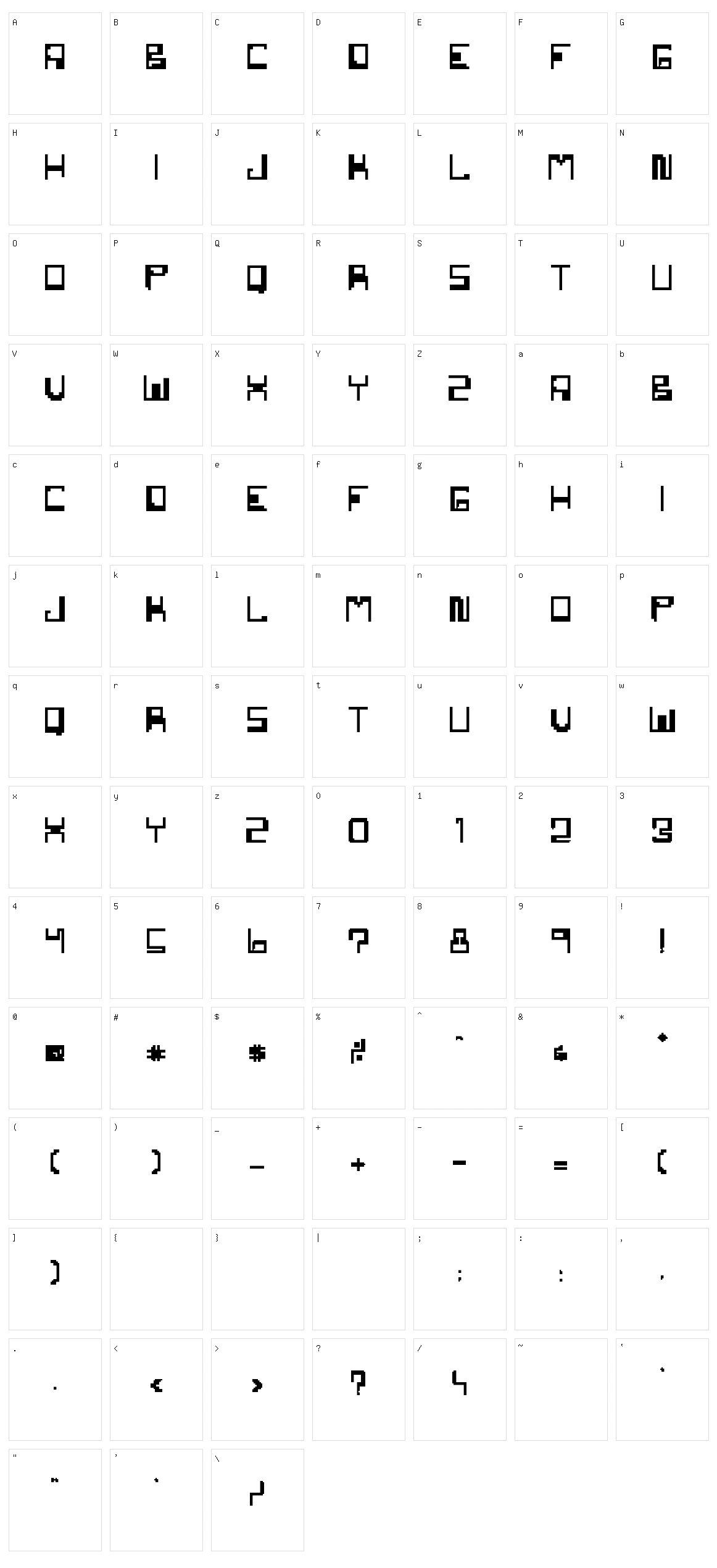
Nemesis Erc 2007
Designed by: The Space Wanderer
Category: LCD & Futuristic
NEMESIS created using Font Creator Program 3
By Eric Wiryanata. January 2007
this actually the third version of Spaceworm, but i decided that it should go with another name.
and this Nemesis was taken after Sajama Cut's song title (you can check their song at myspace)
Note#2: This typeface is ideal for logos and general design.
It isn't very suitable to be used with word-processors as it lacks some symbols and letters.